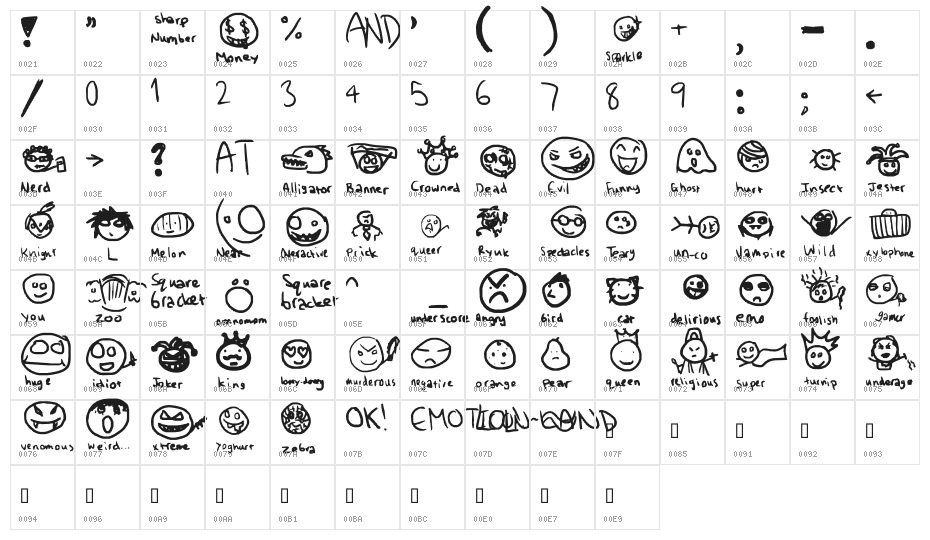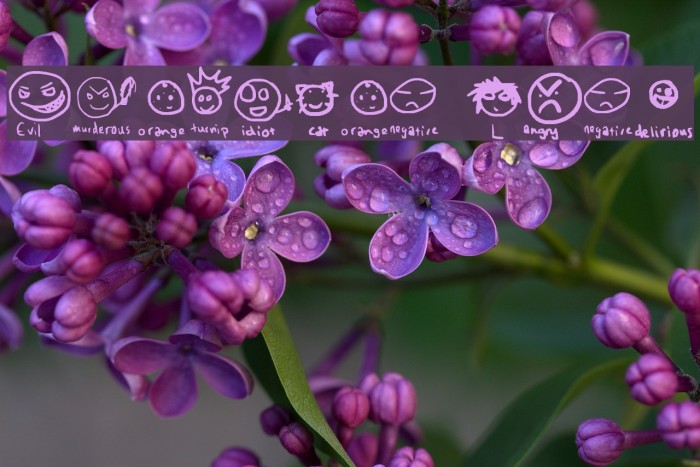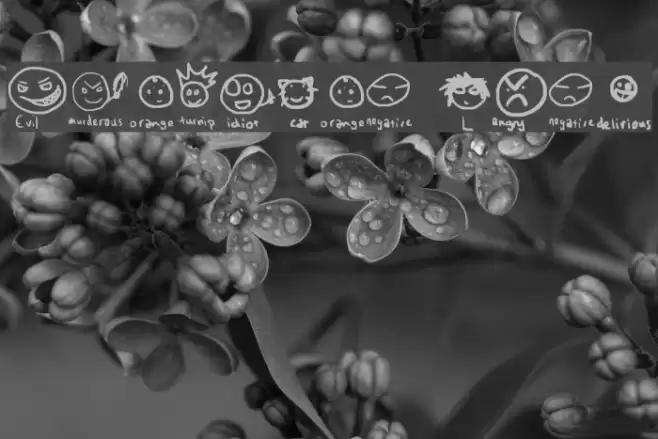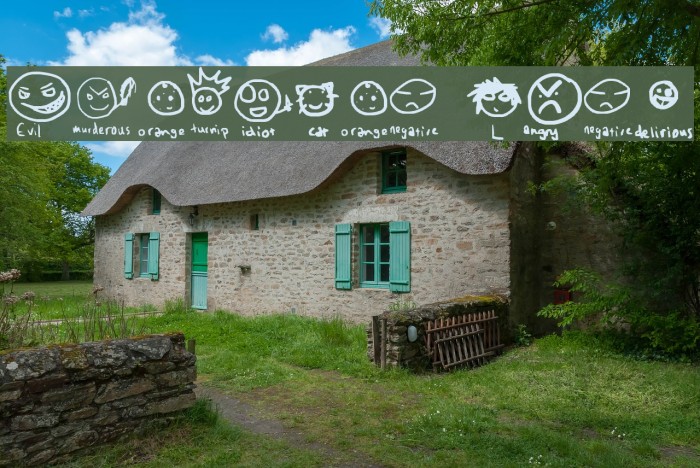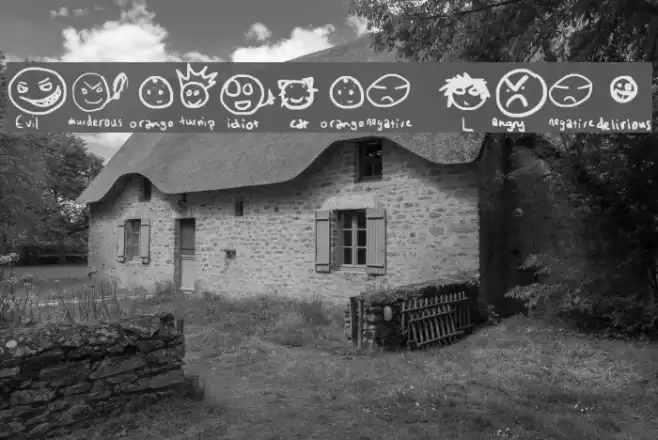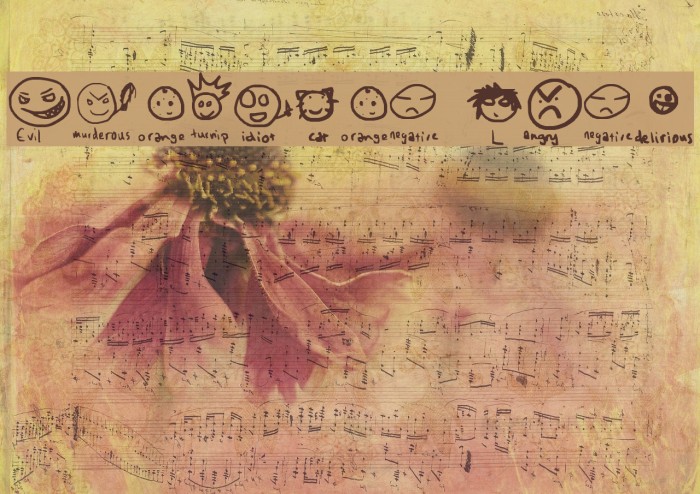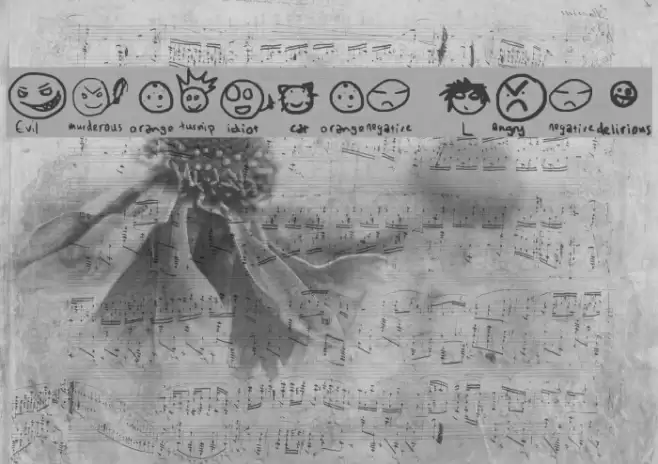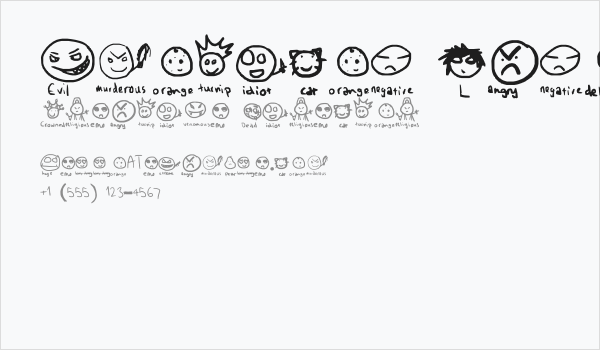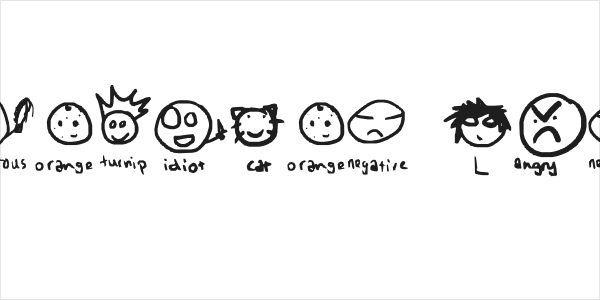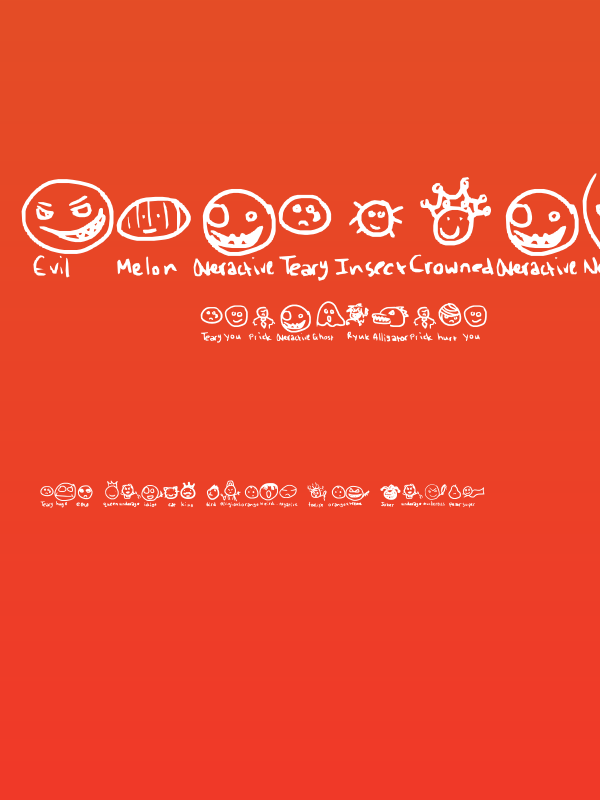
Emoticon Land Font
Emoticon Land Description
This is not a valid font. The image contains a series of hand-drawn emoticons and characters, each with unique expressions and themes. These emoticons are accompanied by descriptive labels, adding a playful and creative touch. The numbers and special characters are also drawn in a whimsical style, contributing to the overall artistic and informal appearance.
| Use Case | Logos, Decorative elements |
| Proposed Projects | This style could be used for creating custom stickers, playful greeting cards, or unique social media graphics. |